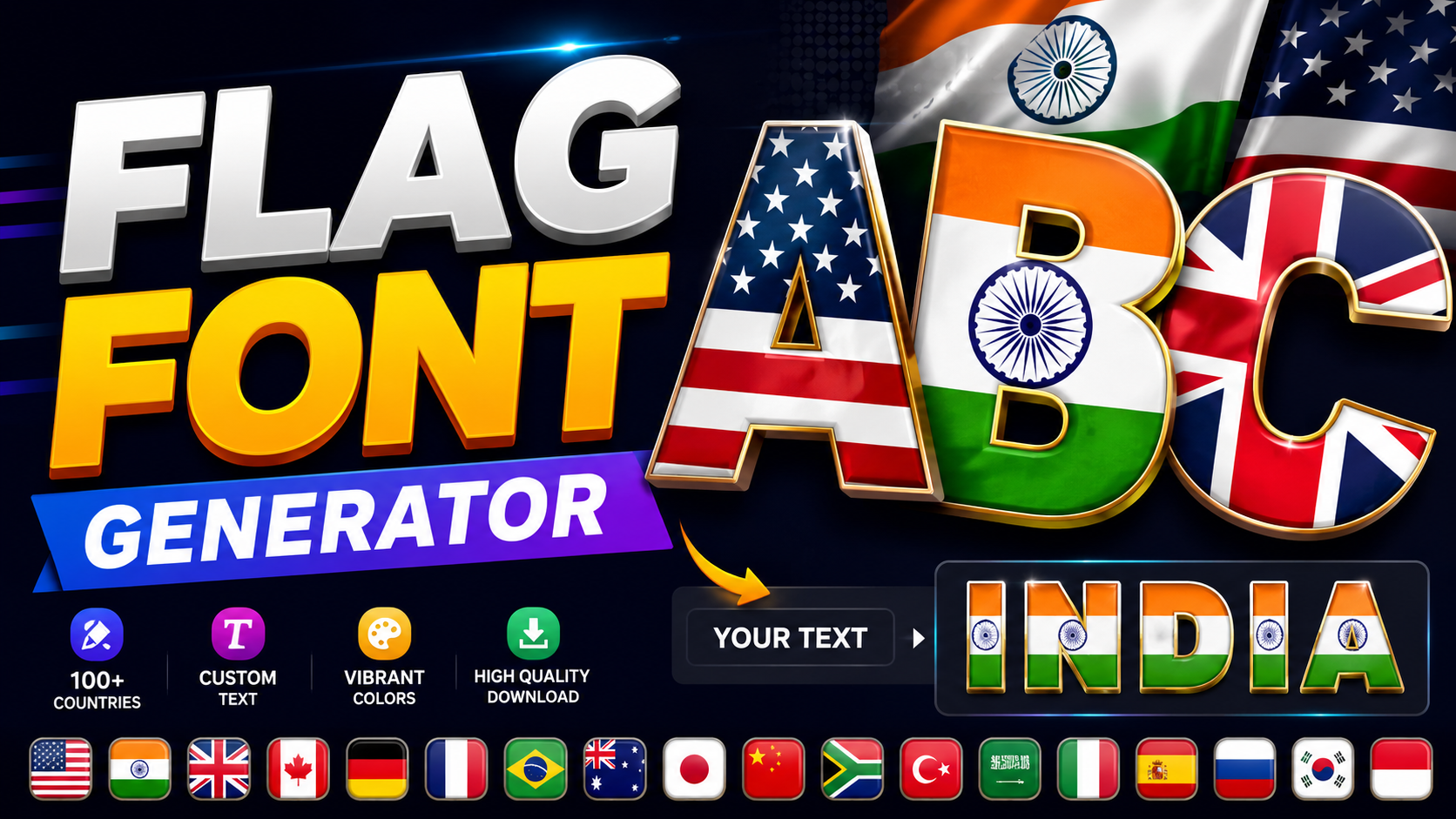
Flag font generator design carries a historical weight that most designers overlook. When I first explored flag typography, the color, country identity, and SVG rendering across platforms revealed how deeply national pride shapes visual language expression.
Beyond emojis and display aesthetics, flag fonts blend collegiate, varsity energy with cultural depth. From Arabic letterforms to Canadian symbolism, flag typography spans global traditions, brand identity, and rich heritage connecting multiple diverse countries worldwide.
Flag Font Categories
Flag fonts include classic letterform designs, modern emojis, and eye-catching display styles with bold flair. Facebook, Discord, Instagram, and LinkedIn natively support these text tools, giving users powerful ways to express patriotism through country icons.
A free generator covering 258 territories — from Wales, Scotland, and England to EU member states and UN regions across Oceania, Africa, Asia, Europe, and the Americas — delivers the world’s most complete flag collection for download.
Related Styles
Sports team fonts shine during World Cup events, Olympics competition, and USA celebrations. From Independence Day stories to holidays captions on TikTok and WhatsApp, flag text gives every bio and profile a genuine patriotic touch.
Travel-bound creators visiting Tokyo use flag fonts to mark location in Twitter tweets, LinkedIn posts, and Instagram bios. Mexican-American users feel proud of their rich cultural background, showing Brazil, Philippines, or India flag emojis online.
Where You Can Use Flag Fonts
Deploying a specialized font elevates any digital project instantly. Through my experience, injecting this unique style works best for an athletic poster or a bold headline, adding vibrant features that redefine traditional graphic design aesthetics.
Whether targeting a mainstream digital platform or enhancing interactive comments, these visual tools excel. Industry experts seamlessly utilize them for both personal expressions and commercial apparel, launching popular concepts for every modern clothing club today.
Flag Text Examples Sports & National Pride
Injecting a sport typeface shifts team identity layouts instantly. From experience, basic caps fail during global events. Enthusiasts reviewing a high school gridiron victory demand authentic visual representation rather than stale, default systemic presentations.
Updating a headline or launching viral reels requires immediate cultural resonance. When an athlete becomes a champion, flashing the stylized symbols of the USA breaks standard text constraints, projecting unfiltered, profound, raw, authentic, lasting pride.
Cultural Celebrations
Typographic curation reveals unexpected cultural dynamics. When designing for festive events, I deploy an Islamic motif. Plain digital messages transform, mirroring vibrant bunting hung across venues to celebrate localized heritage directly inside public status fields.
Global celebrations disrupt traditional text aesthetics. For instance, anchoring a major sports championship or localized birthday gala requires expressive flair. I often combine custom characters within custom usernames representing nations like Japan to evoke patriotism.
Travel & Location
Navigating modern digital itineraries requires more than standard typography. When mapping transit hubs across Europe, integrating specific Country Flags anchors spatial memory instantly. This visual cartography transforms text into a Global interface for rapid identification.
Experienced design practitioners frequently overlay subtle narratives onto digital travelogues. High above the Clouds, a traveler documenting journeys to Canada or France relies on typographic symbology. It evokes immediate placehood without cluttering cramped mobile screens.
Heritage & Identity
Typographic typography shapes tribal belonging through digital banners. My decade in design reveals that rendering a specific American flag via unique strokes evokes deep psychological pride. We see similar emotional resonance across various special regions.
Historically, ancestral roots manifest when modern interfaces alter traditional emblems. Integrating intricate calligraphy with bold vectors captures historical evolution perfectly. I often analyze how ancestral memory shifts when subcultures inside Germany adopt stylized baroque expressions.
Flag Regions Covered
Global regional displays depend heavily on system rendering. Having typed across various digital devices, I noticed how Apple systems process specific Unicode geographic glyphs beautifully. Whether rendering Arab scripts or classic American layouts, boundaries shift.
Integrating localized iconography directly into a creative video project or corporate documents can immediately elevate visual messaging. Every single typographic character carries real geographical weight, maximizing emotional impact when designing across professional international platform ecosystems.
Operating system updates alter native glyph parameters, meaning a regular vector shifts looks. When deploying this unique layout inside an email or private discord server, each device renders localized black borders around every digital channel.